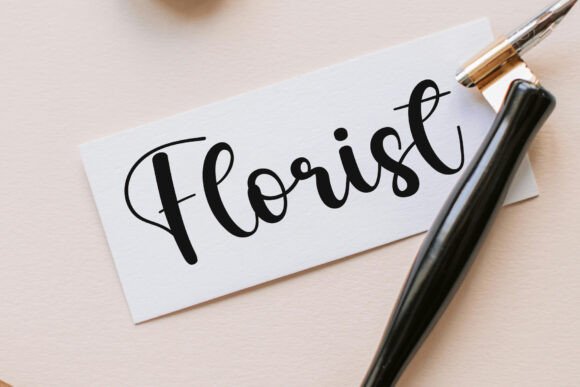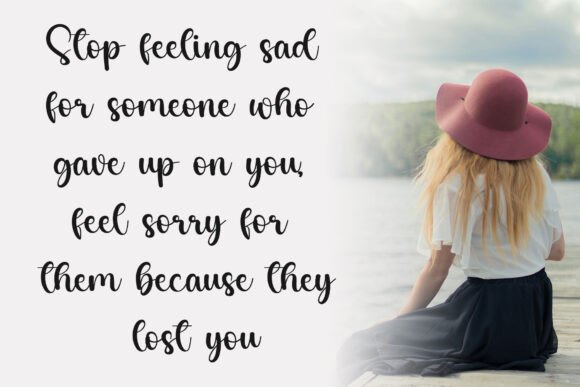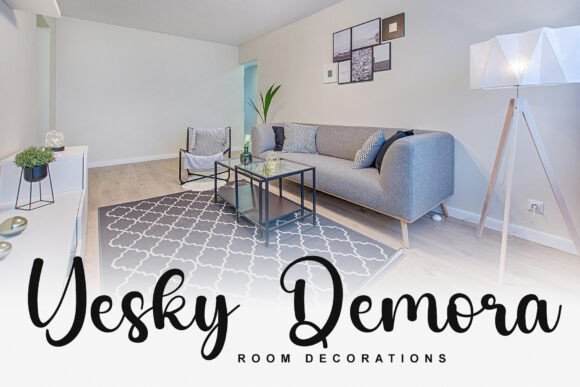
Already Font
Already is a beautifully crafted display handwriting font that blends elegance with a modern, artistic touch. Its flowing strokes and well-balanced curves create a sophisticated yet approachable feel, making it the perfect font choice for those who want to add a touch of class and personality to their designs.